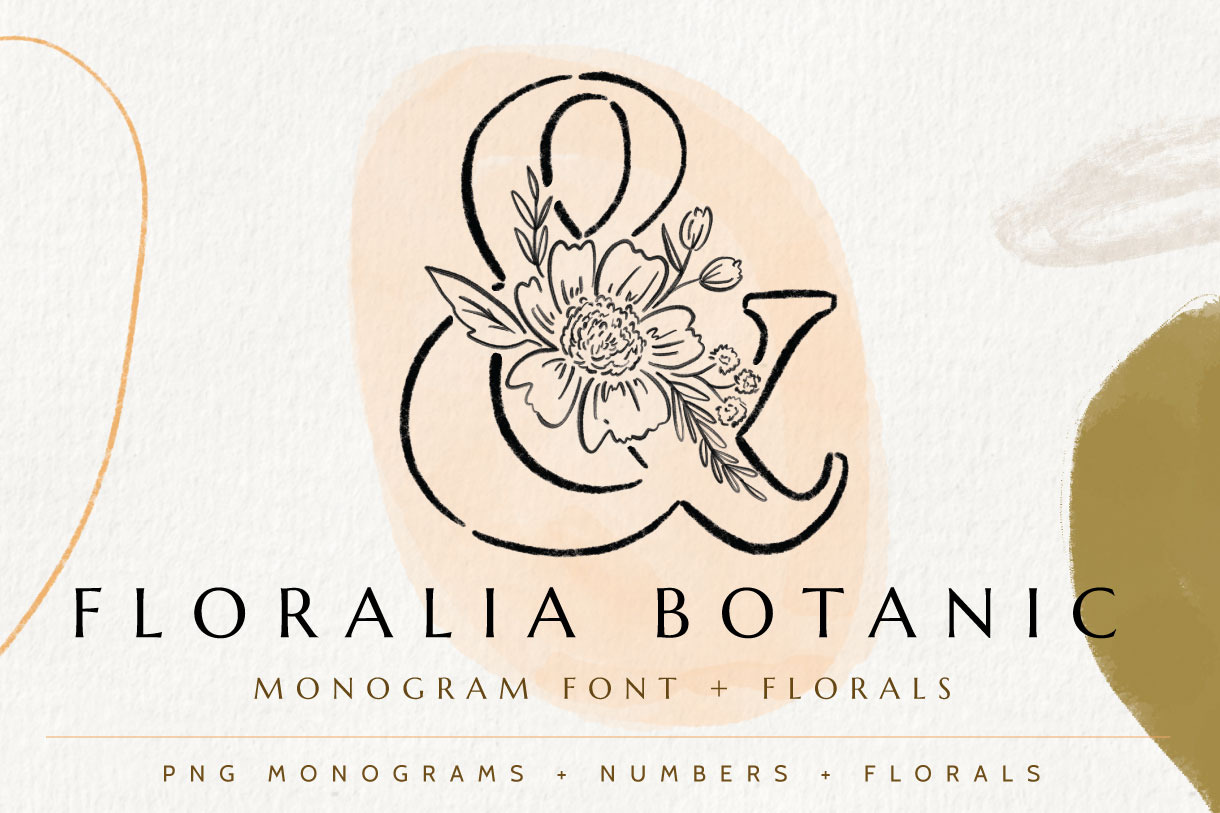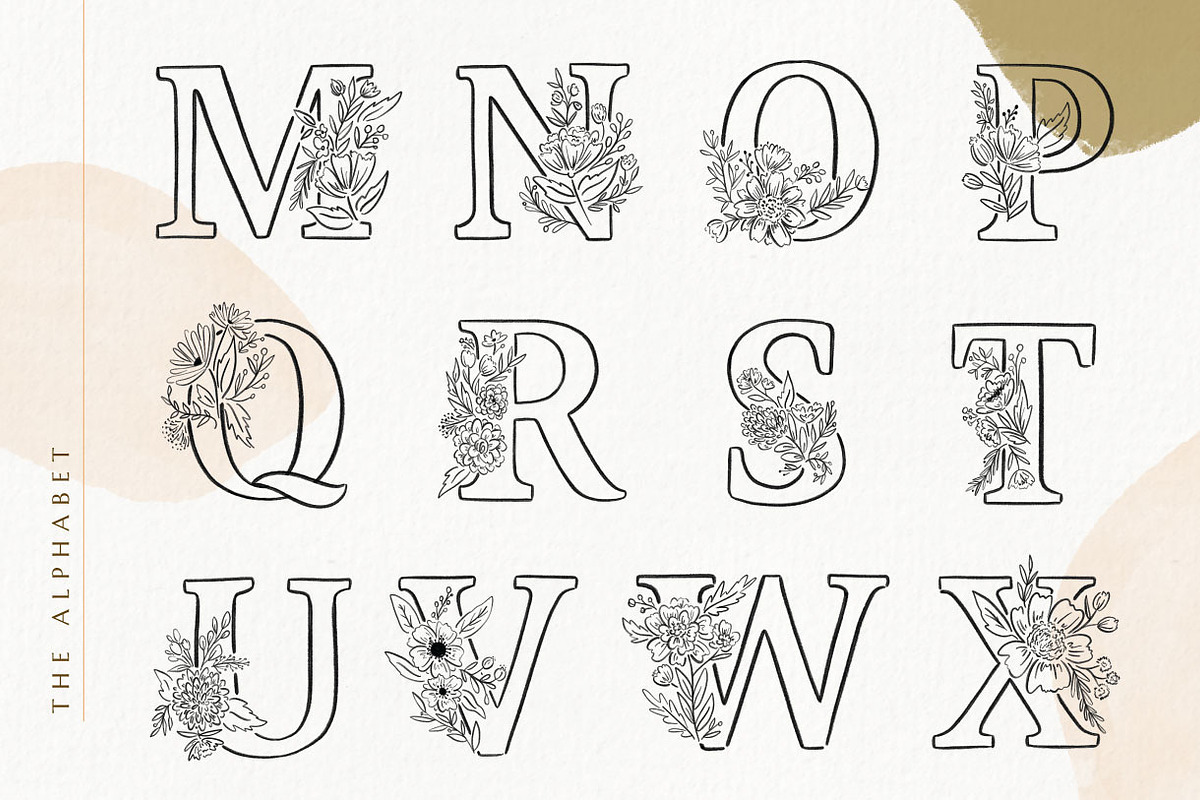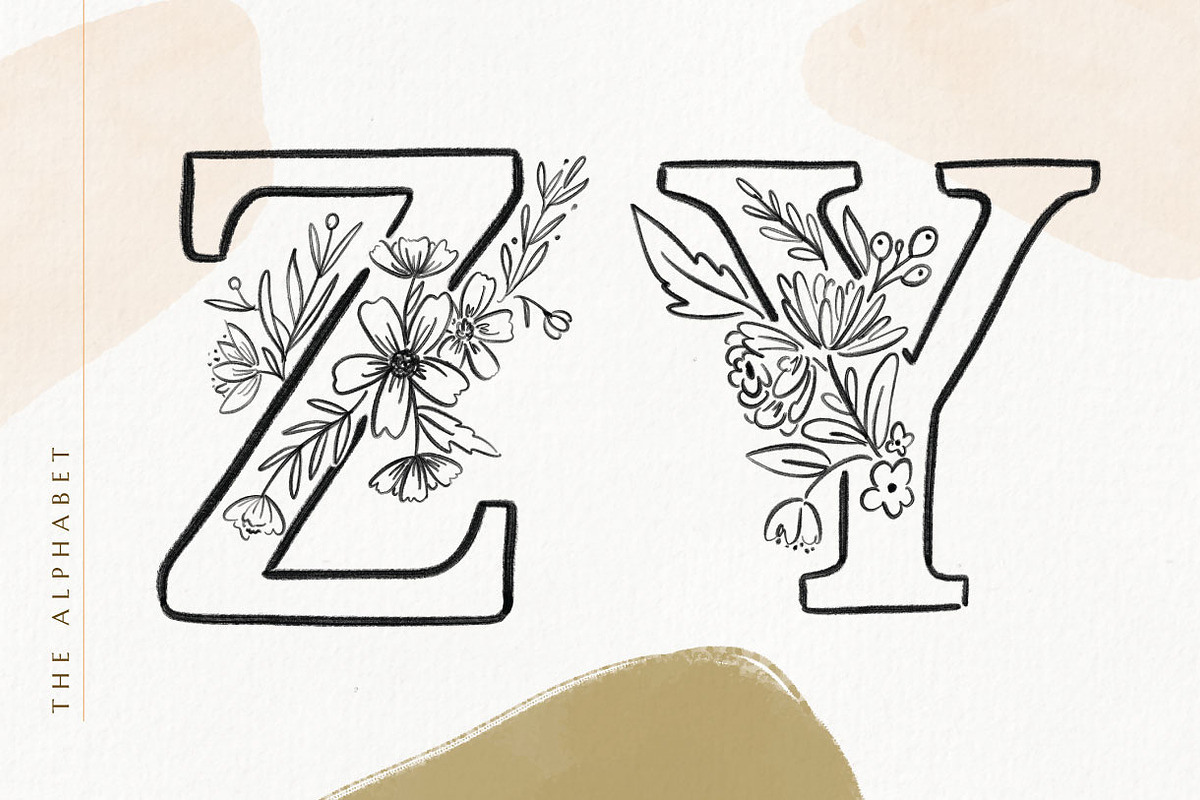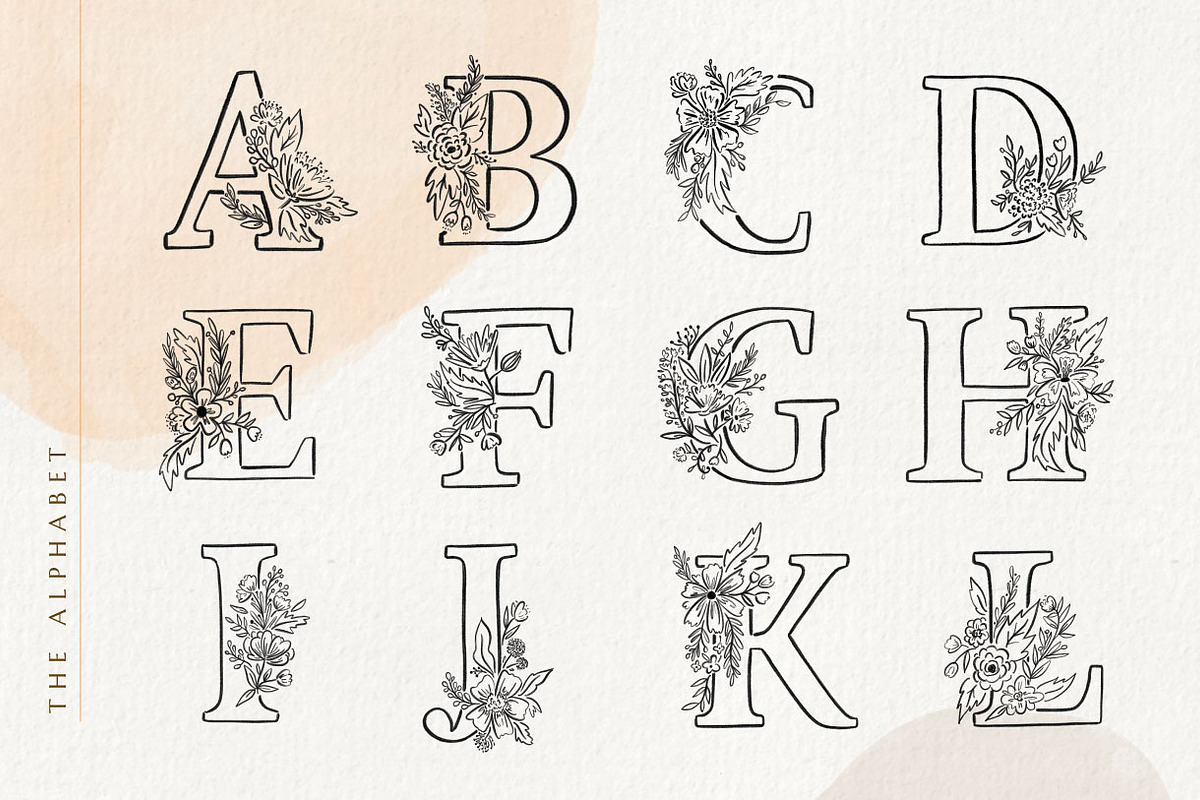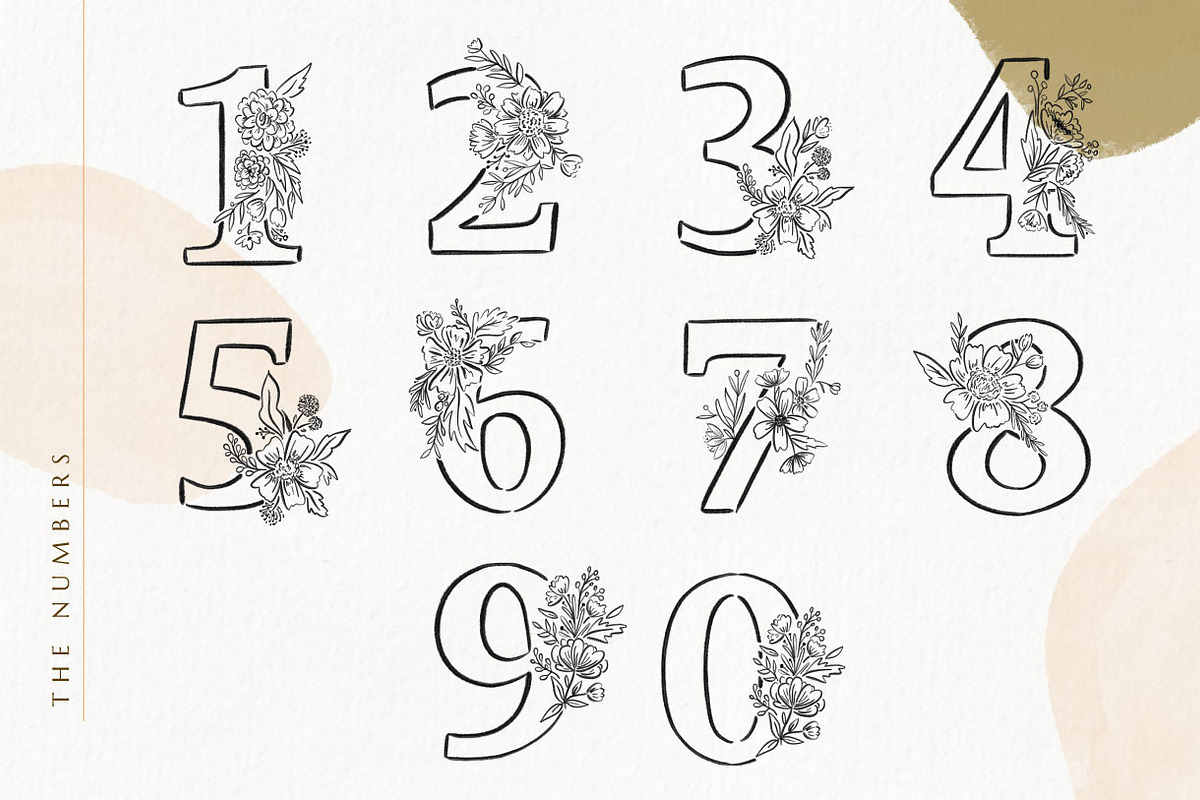
Floralia Botanic Font
I'm excited to launch the "Floralia Botanic Collection". A lovely botanical SVG font of uppercase letters (monograms) + numbers. Plus hand-drawn floral illustrations (png format).
This font / alphabet works perfectly for prints, decoration, cards, logos, branding, invitations, wedding design, and anything your creative soul could imagine.